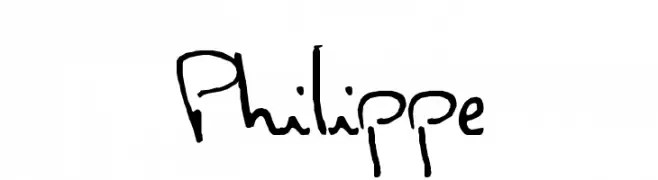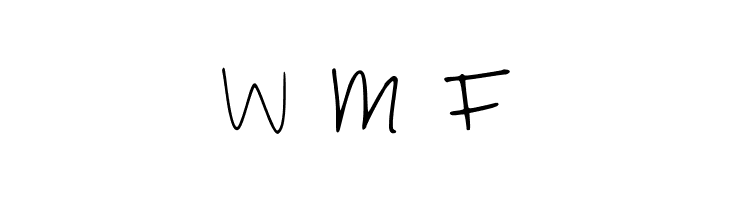
A casual, handwritten font with a playful and informal style.
A playful, informal font with rounded, consistent strokes and whimsical letterforms.
A casual, handwritten font with a playful and informal style.
A playful, casual handwritten font with a friendly and informal style.
A playful, informal handwritten font with smooth, rounded strokes.
A playful, casual handwritten font with a friendly and informal style.
A playful, handwritten font with an informal and casual style.
A casual, handwritten font with a playful and informal style.
A playful, hand-drawn font with a casual and informal style.
A playful, handwritten font with a casual and informal style.
A playful, handwritten font with dynamic strokes and an informal style.
A casual, handwritten font with a playful and informal style.
A playful, handwritten font with an informal and casual style.
A playful, handwritten italic font with bold strokes and a lively style.
A playful, handwritten font with a casual and informal style.
A casual, handwritten font with an organic and informal style.
A playful, handwritten font with bold, irregular strokes and a casual, whimsical style.